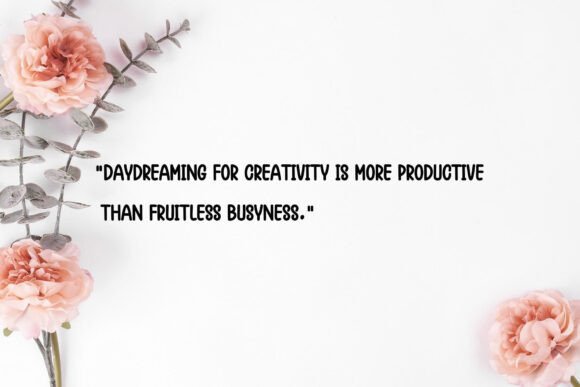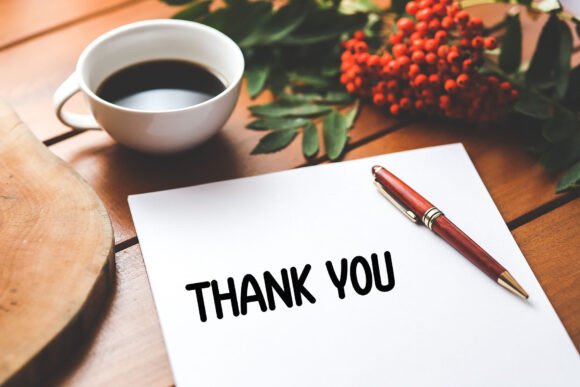
Introduction to Hello Simple Font
Have you ever been stuck in front of your computer, staring at a blank canvas, and suddenly, a brilliant idea strikes? The spark of creativity ignites, and you know exactly what you want to create. For designers, moments like these are precious, and the right design resource can make all the difference. One such treasure is the Hello Simple Font, a beautiful handwritten font that adds an elegant touch to any project.
With its distinct and timeless style, the Hello Simple Font is perfect for designers who want to create stunning designs without compromising on quality. Whether you’re working on a creative project, or simply need a free download for a personal touch, this font is sure to impress. Plus, its transparent background makes it easy to use in any design, from digital art to print materials.
Get ready to fall in love with the Hello Simple Font and take your designs to the next level. In this article, we’ll explore the features and benefits of this amazing font, and show you how to incorporate it into your next project.
Key Features of Hello Simple Font
- High-quality design resource perfect for creative projects requiring a clean and simple look.
- Features a transparent background, allowing for seamless integration into any design.
- Comes in a single weight, making it ideal for projects where consistency is key.
- Unique characteristic: Its simple design makes it highly legible and versatile, suitable for a wide range of creative projects.
Honest Review: Hello Simple Font
I recently had the chance to work with Hello Simple Font, a free download that’s become a staple in my design resource library. When I first saw the font, I was immediately drawn to its clean and modern aesthetic.
- ✨ The high quality of the font is evident, with crisp lines and a transparent background that makes it perfect for any creative project.
- ✨ The simplicity of the font makes it incredibly versatile, suitable for a wide range of applications, from logos to body text.
- ⚠️ The font lacks a bold weight option, which may limit its use in certain design contexts.
- ⚠️ Some users may find the font’s simplicity too minimalist, making it less engaging for certain creative projects.
Hello Simple Font is a versatile design resource that can be used in a variety of creative projects.
Some common use cases include:
– Creating invitations and event graphics.
– Designing social media graphics and ads.
– Developing branding materials and logos.